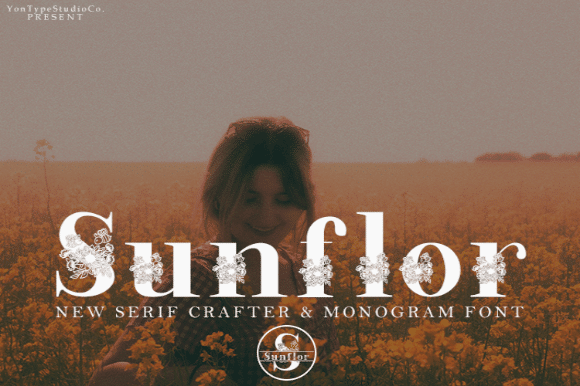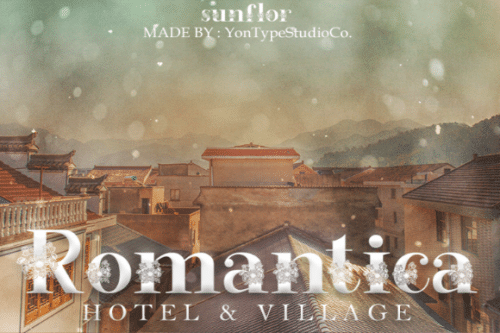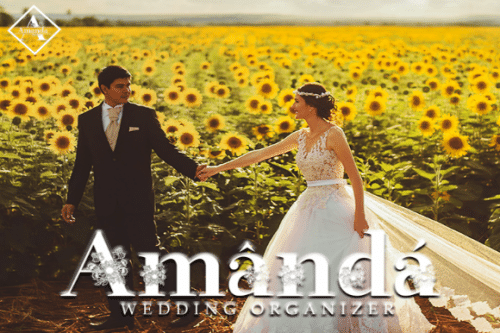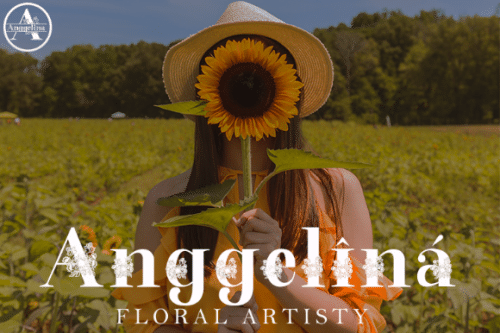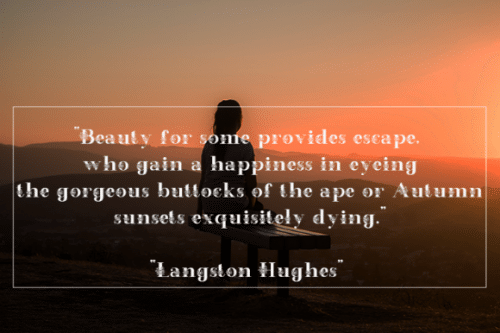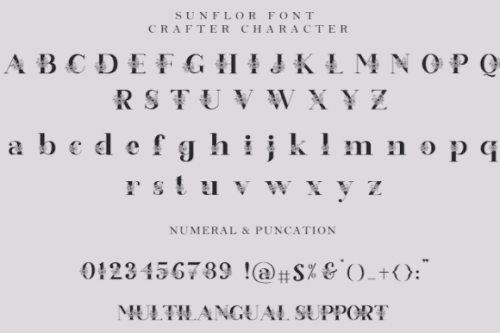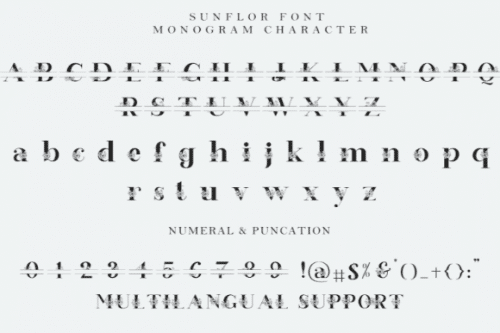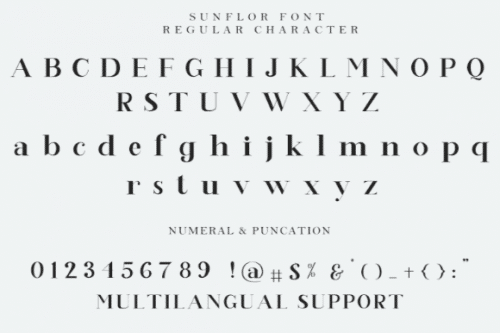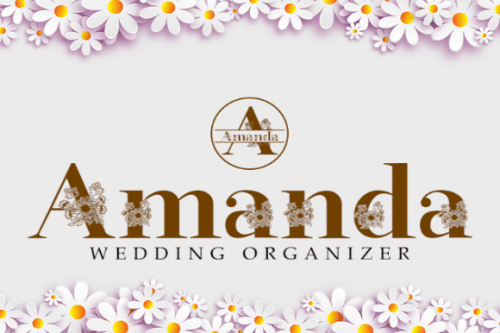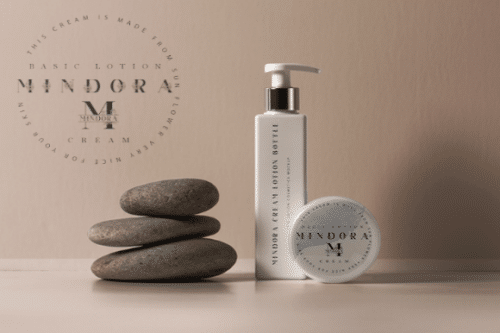
Sunflor Serif Font
Sunflor is a minimal and neat serif font. It can easily be matched to an incredibly large set of projects, so add it to your creative ideas and notice how it makes them stand out!